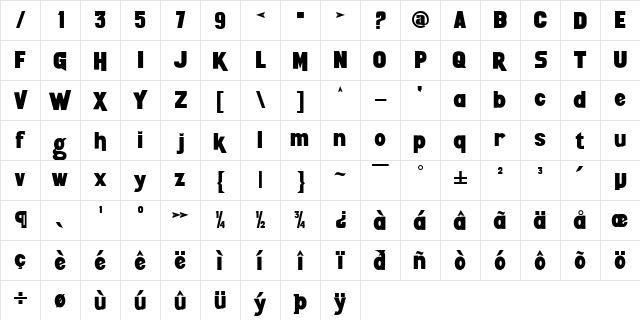
Skaters Regular
Design Context for Skaters Typeface
Skaters takes a measured approach to typography — its balanced proportions and neutral character make it a reliable workhorse for both digital and print work.
Pro Tip: Use Skaters in both headline and body roles to test its range before committing to a single application.